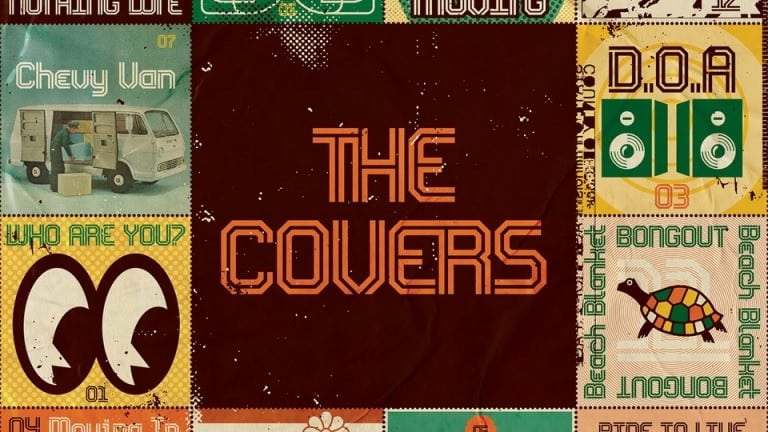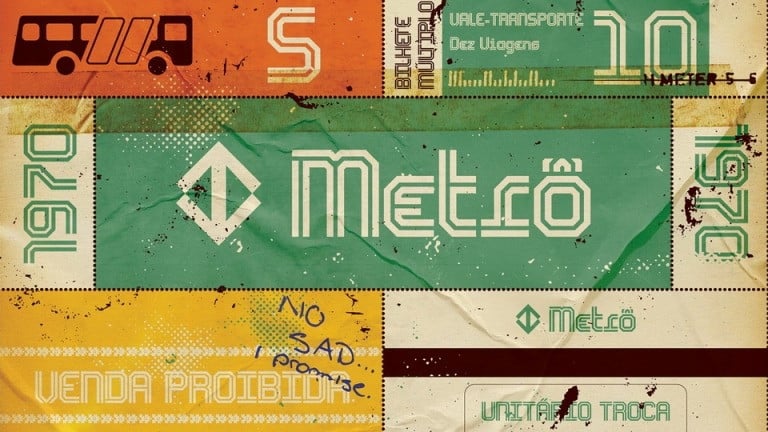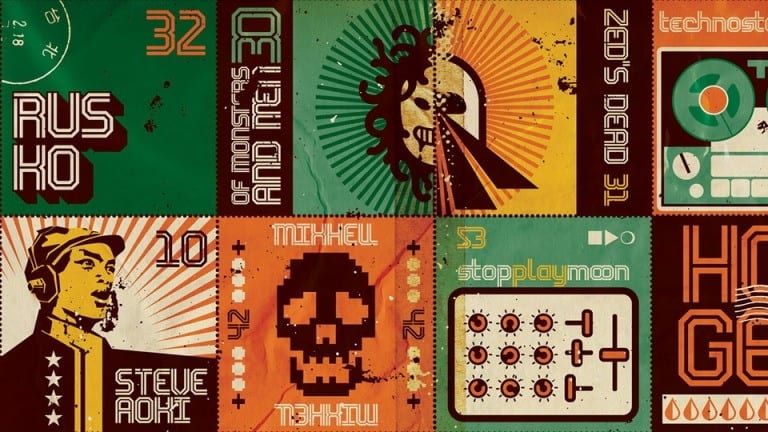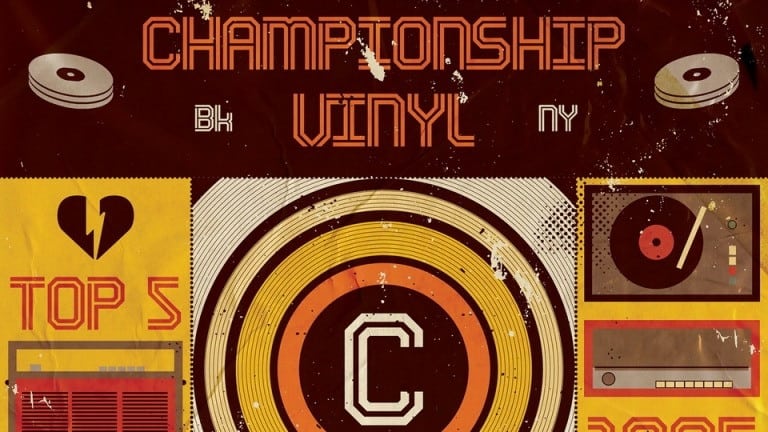
Wim Pro Display Font
Wim Pro Display Font is a typeface that is inspired by sports letterings style. It’s designed and shared by Rafael Nascimento. It’s a display typeface influenced by sports letterings, typographic decals from the 70s and of course, the inspiring work of Wim Crouwel. The new version has less mechanical design and packed with a series of ligatures – 637 with letters and another 57 with numerals.
Wim Pro Display Font is indicated for use in titles, letterings and logos. Punctuation and diacritics for Latin languages are also included.